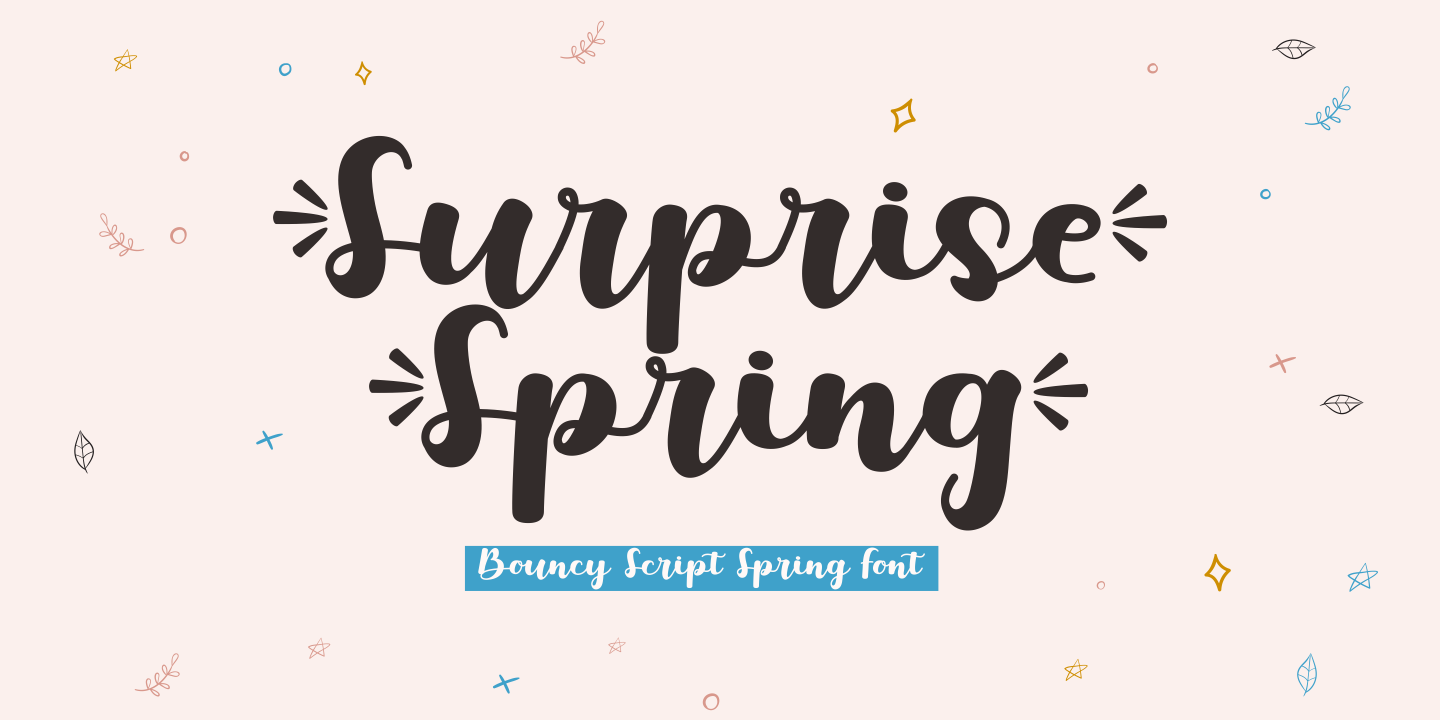
Surprise Spring Font Free Download is a cheerful, handwritten script typeface that brings freshness, joy, and a touch of elegance to any design. With its flowing strokes, playful curves, and natural handwritten charm, Surprise Spring Font is perfect for wedding invitations, greeting cards, branding, logos, social media graphics, and product packaging. Its lively and uplifting style makes it ideal for projects that want to evoke happiness and a welcoming vibe.
Whether you’re designing for seasonal promotions, crafting heartfelt stationery, or building a friendly brand identity, Surprise Spring Font delivers warmth, personality, and approachability. Its balance of casual elegance and legibility makes it versatile across both print and digital designs.